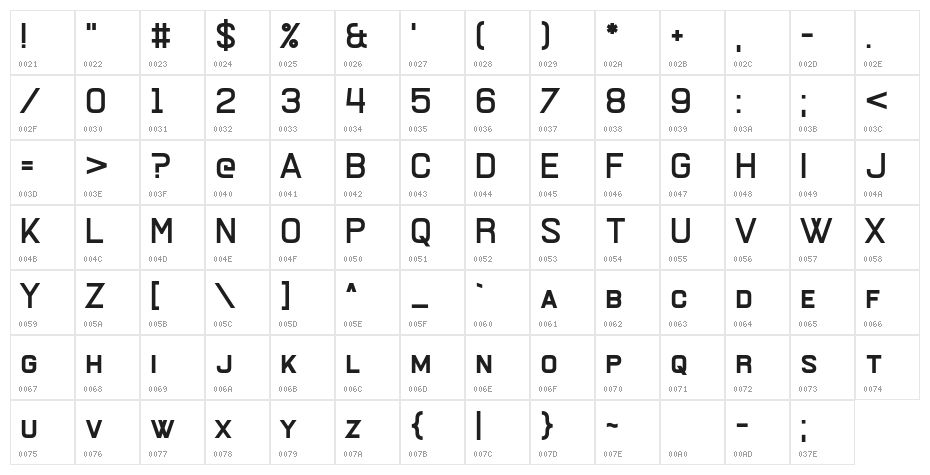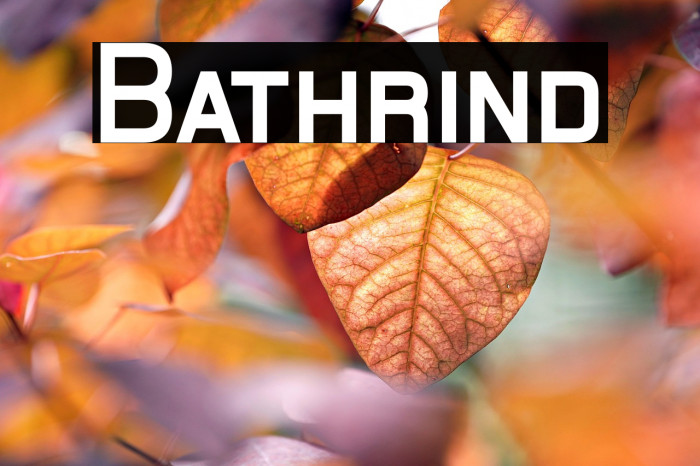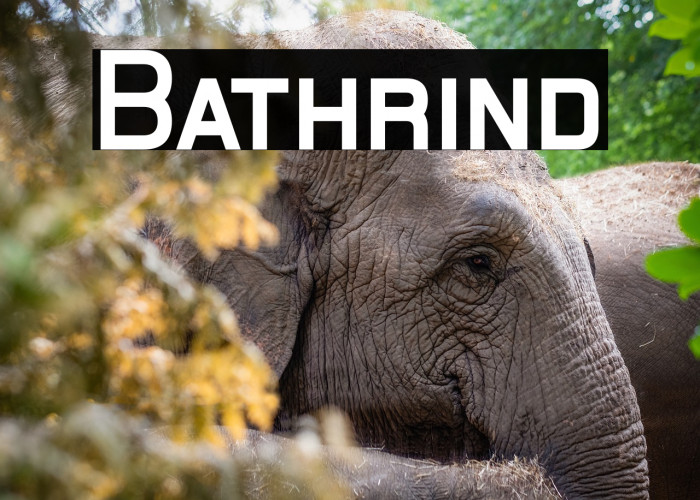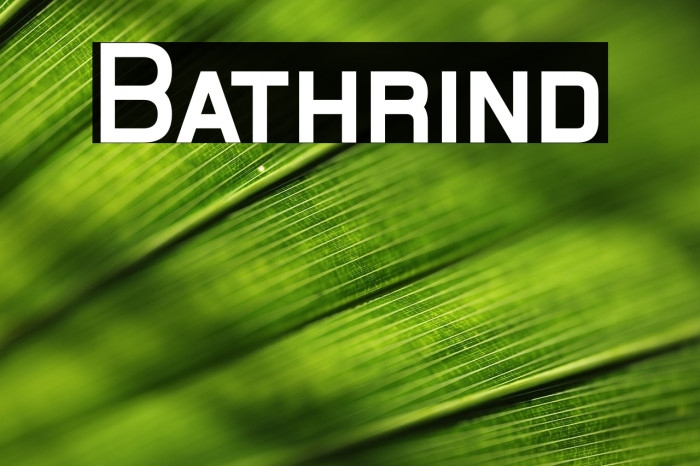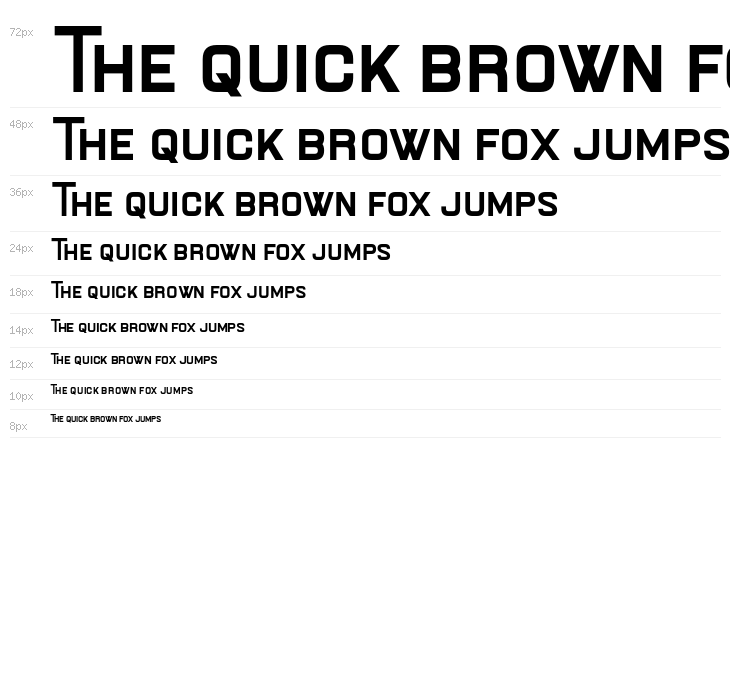
Bathrind Font
Bathrind Description
This font features a bold and modern design with clean, straight lines and a geometric structure. The characters are uniform in width, providing a balanced and cohesive appearance. The uppercase and lowercase letters maintain a consistent style, with slightly rounded edges that soften the overall look. The numerals are clear and easy to read, making them suitable for various applications. Special characters are well-integrated, maintaining the font's sleek and contemporary aesthetic. This font is versatile, offering a professional yet approachable feel.
| Use Case | Headlines, Logos, Digital Media |
| Proposed Projects | Ideal for branding, advertising, digital media, and editorial design projects. |